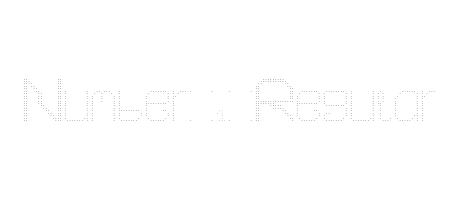
Number 1
Number 1 Regular: A minimalist digital font, reminiscent of LED displays or early computer text. Its thin, evenly spaced dots create a clean, almost pixelated aesthetic. The characters are simple and geometric, lacking serifs or ornamentation, lending a modern and slightly retro feel. The overall impression is one of precision and technological coolness.